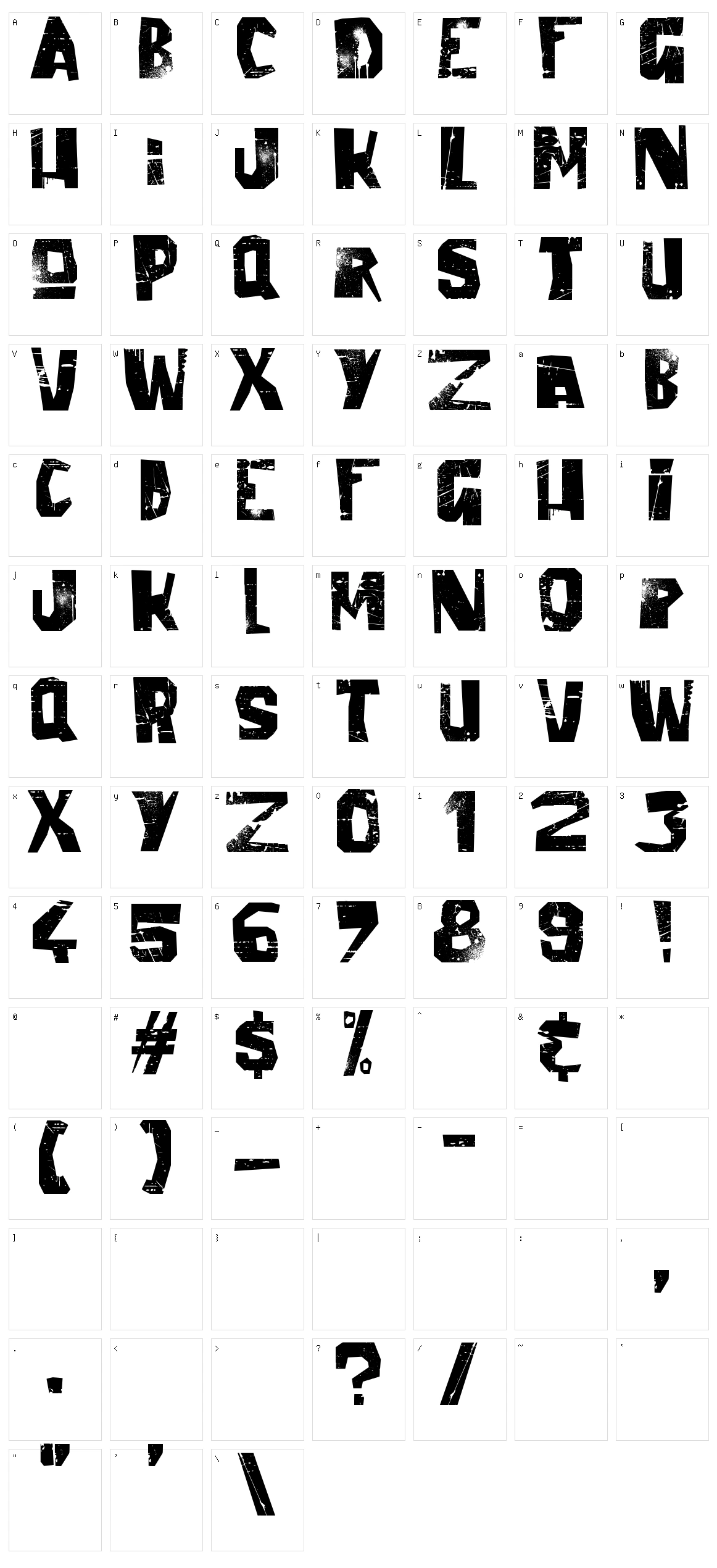
The free font Ballad of Dwight Frye is carefully designed by imagex, showcasing a thoughtful balance of creativity and usability and falls under the Horror font style. When you download the ZIP file, it contains only 218.92 KB of font files, making it lightweight and quick to download. Please review the license details below to understand permitted usage and distribution rights. If license information is not available, we recommend using this font for personal projects only or contacting the author directly for commercial usage permissions.